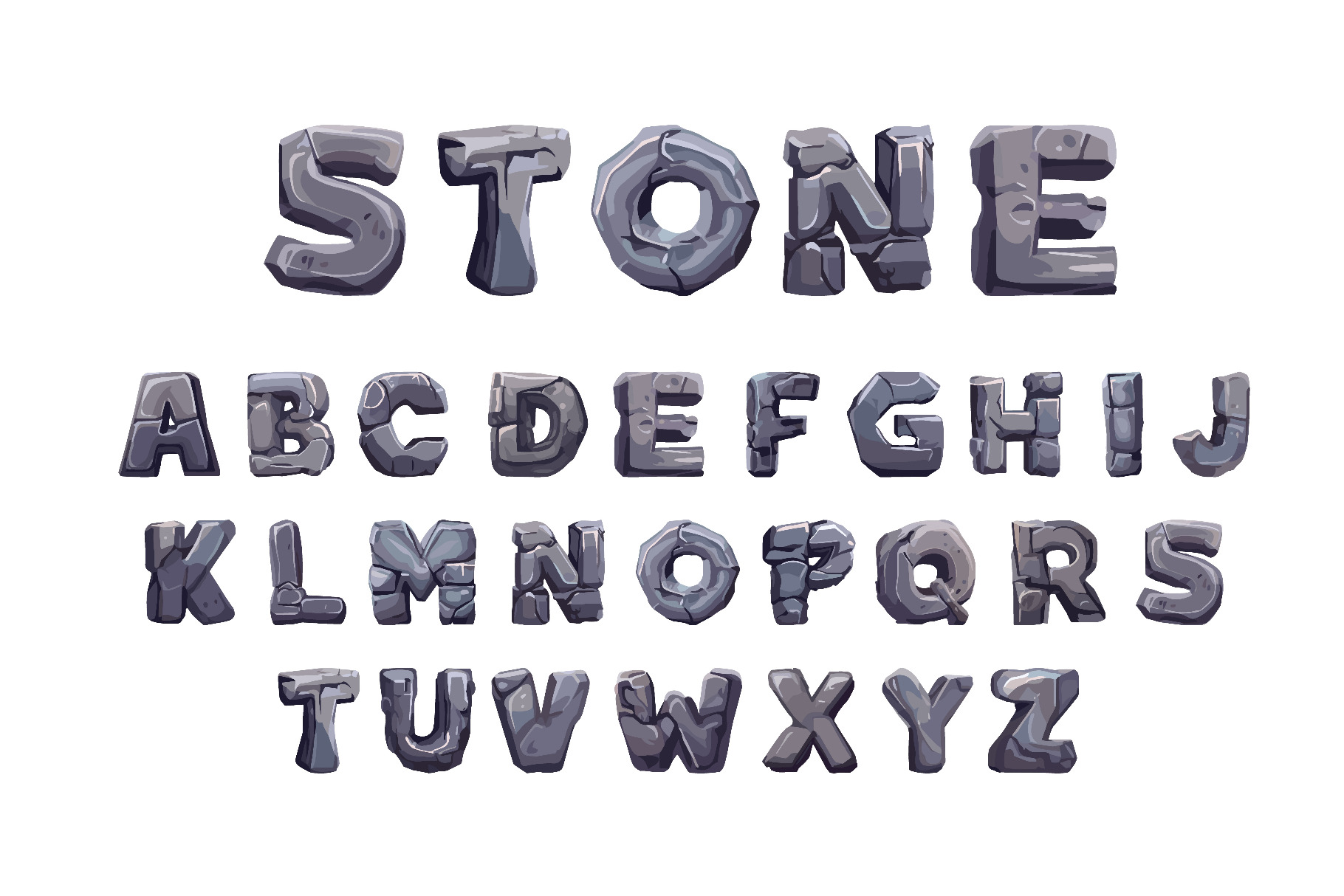
Cartoon stone font set
Cartoon stone font set.
Rock-style alphabet letters with concrete texture, perfect for games, educational materials, decorative titles, posters, or any creative project that needs a bold rocky look. Includes full ABC type symbols in a fun cartoon style.